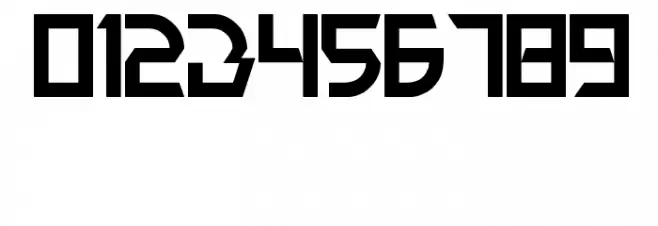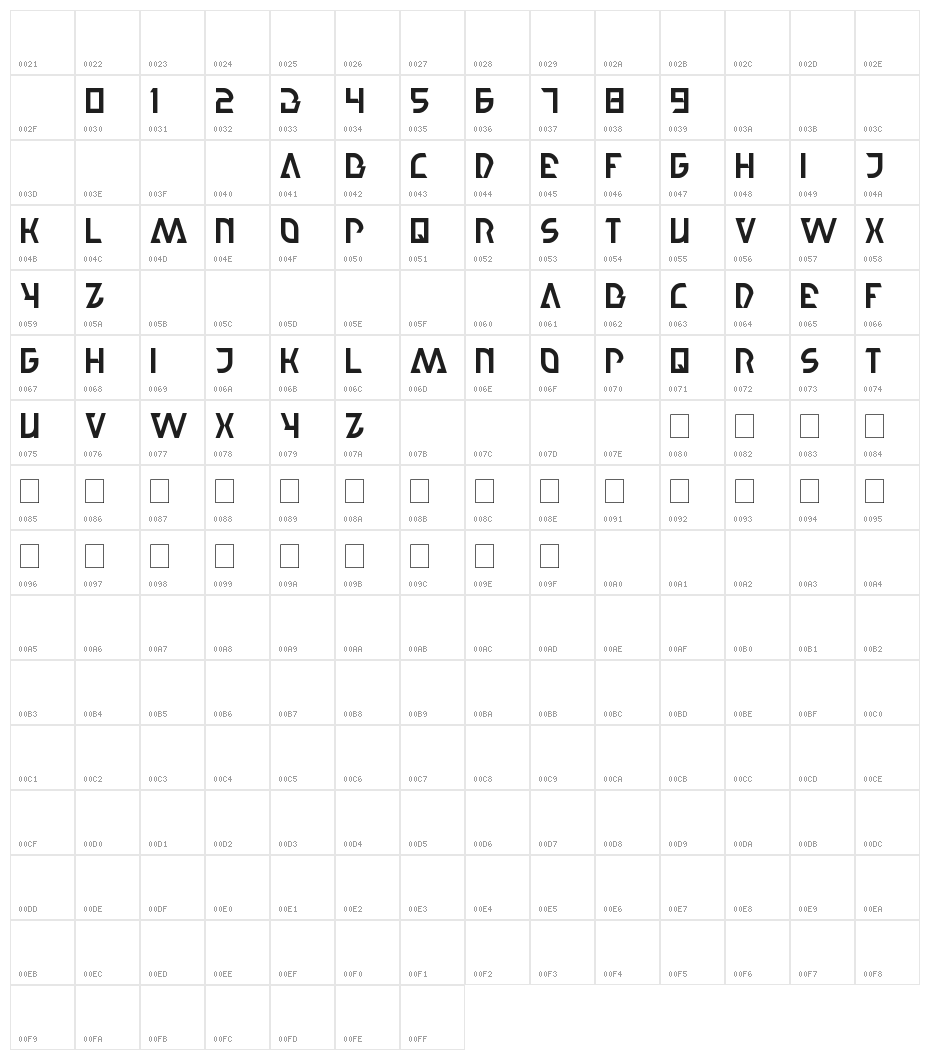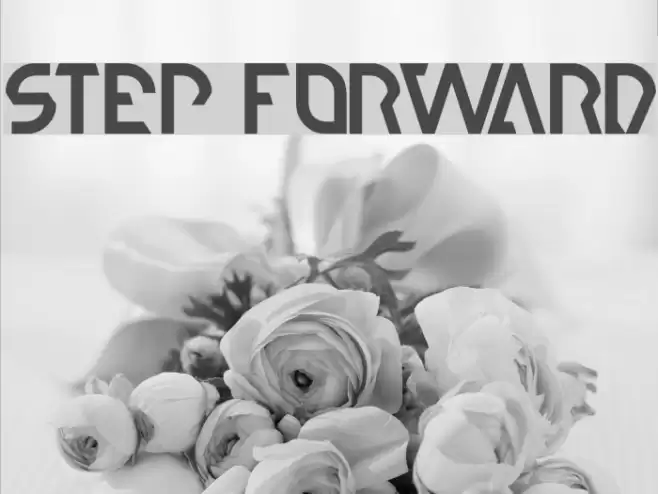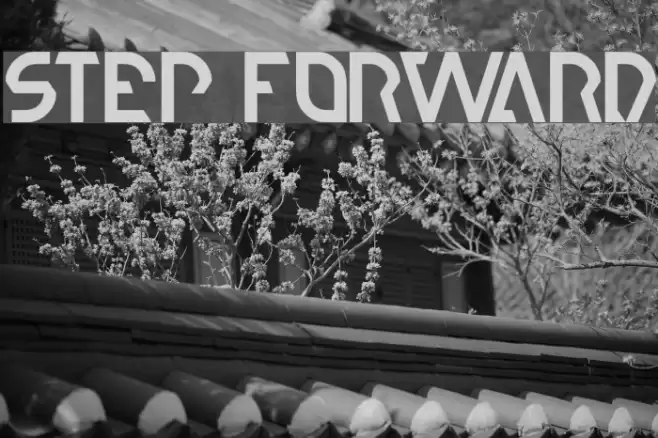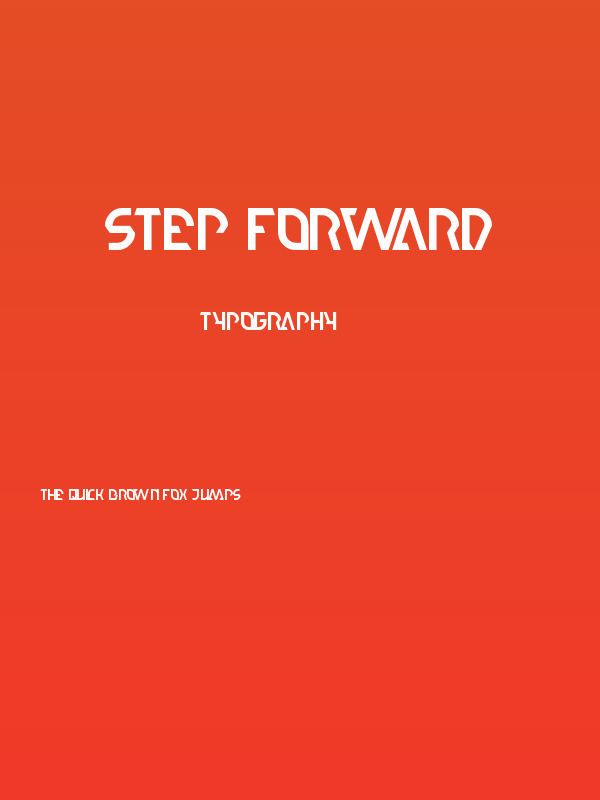
step forward Font
step forward Description
This font features a bold and geometric design, characterized by sharp angles and a futuristic aesthetic. The uppercase letters are distinct with their angular cuts and strong presence, making them ideal for attention-grabbing headlines. The numbers follow the same geometric style, ensuring consistency across different uses. The font's unique style is both modern and edgy, suitable for projects that require a contemporary and bold look. Its design is reminiscent of digital or sci-fi themes, making it perfect for tech-related branding or media.
Proposed ProjectsIdeal for tech branding, sci-fi media, digital interfaces, and modern advertising.